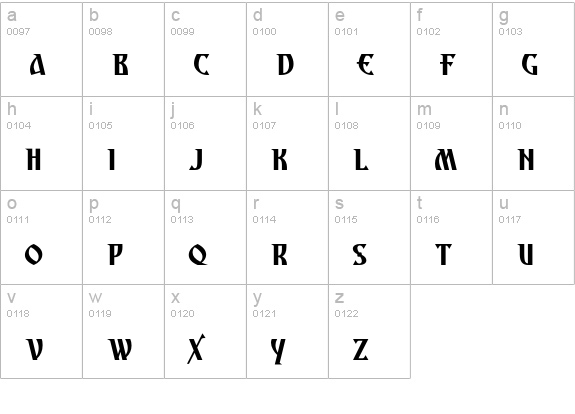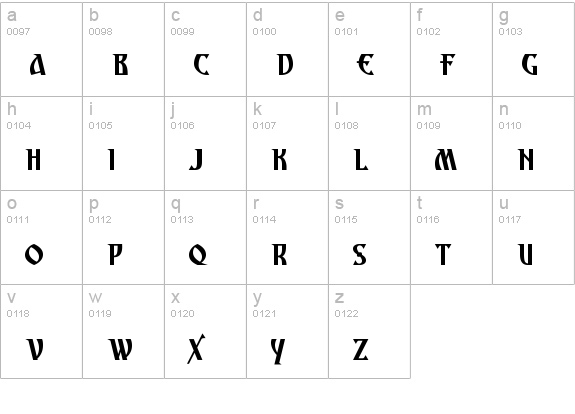
Archangel-Body Font Details
Archangel-Body font is a stunning and elegant typeface that exudes a sense of strength and grace. With its intricate details and flowing curves, this font is perfect for adding a touch of sophistication to any design project. The Archangel-Body font is versatile and can be used for a wide range of applications, from branding to editorial design. What makes this font even more special is that it is available for free download at FontsMarket.com. Yes, you read that right - this beautiful typeface can be yours at no cost! Don't miss out on the opportunity to elevate your designs with the timeless beauty of Archangel-Body font. Download it today and let your creativity soar!